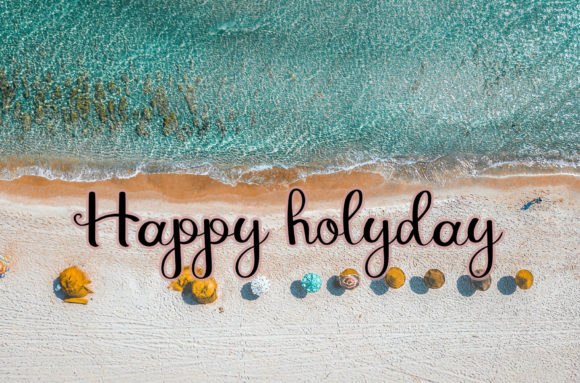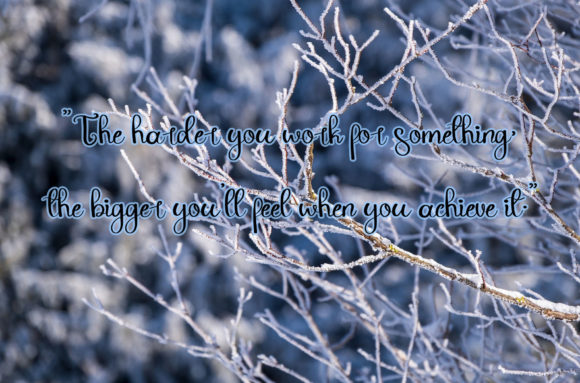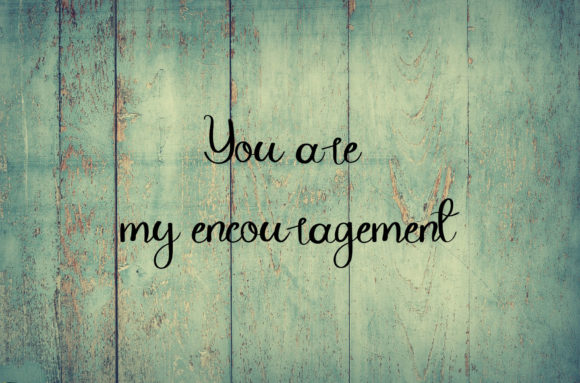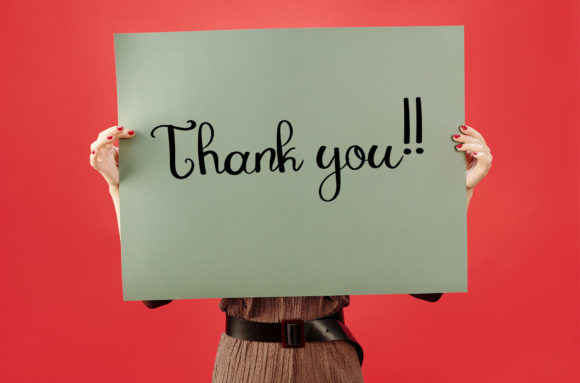
Introducing Handmade Font: The Perfect Blend of Elegance and Modernity
In the world of typography, a well-crafted font can make all the difference in conveying the right message and setting the tone for a brand or design project. For those seeking a font that exudes elegance, sophistication, and a touch of personality, look no further than Handmade Font. This beautifully designed handwritten font has been delicately crafted to become a top choice among designers and crafters alike, offering the perfect blend of classy calligraphic influences and contemporary flair.
The Charm of Handmade Font
Handmade Font is a flowing handwritten font that boasts a unique charm, making it an excellent addition to any design project. Its delicate strokes and carefully considered letterforms evoke a sense of refinement and luxury, while its modern and fresh feel ensures it remains relevant and on-trend. Whether you’re working on a branding project, creating wedding invitations, or designing packaging, Handmade Font is sure to impress.
Key Features of Handmade Font
- Classy Calligraphic Influences: Handmade Font draws inspiration from traditional calligraphy, incorporating elegant strokes and refined letterforms that add a touch of sophistication to any design.
- Contemporary and Fresh: Despite its classic influences, Handmade Font feels modern and fresh, making it perfect for designers looking to create unique and eye-catching designs.
- Handwritten Charm: The font’s handwritten nature gives it a personal and approachable feel, adding a touch of warmth and character to any design.
- Versatile: Handmade Font is incredibly versatile, suitable for a wide range of design applications, from branding and advertising to packaging and editorial design.
Why Designers and Crafters Love Handmade Font
So, why has Handmade Font become a favorite among designers and crafters? For starters, its unique blend of elegance and modernity makes it an excellent choice for those seeking to create designs that stand out from the crowd. Additionally, its versatility and wide range of applications make it a valuable addition to any designer’s toolkit. Whether you’re a seasoned professional or just starting out, Handmade Font is sure to inspire and elevate your designs.
Tips for Using Handmade Font in Your Designs
To get the most out of Handmade Font, here are a few tips to keep in mind:
- Pair it with contrasting fonts: Handmade Font pairs beautifully with bold, sans-serif fonts, creating a striking contrast that adds visual interest to your designs.
- Experiment with colors: The font’s elegant strokes and refined letterforms look stunning in a range of colors, from rich jewel tones to soft pastels.
- Use it to add personality: Handmade Font is all about personality and character, so don’t be afraid to use it to add a touch of whimsy and charm to your designs.
In conclusion, Handmade Font is a truly exceptional handwritten font that offers the perfect blend of elegance, sophistication, and modernity. Its unique charm, versatility, and wide range of applications make it an excellent choice for designers and crafters looking to create stunning designs that stand out from the crowd. Whether you’re working on a branding project, creating wedding invitations, or designing packaging, Handmade Font is sure to impress. So why not give it a try and see the difference it can make in your designs?